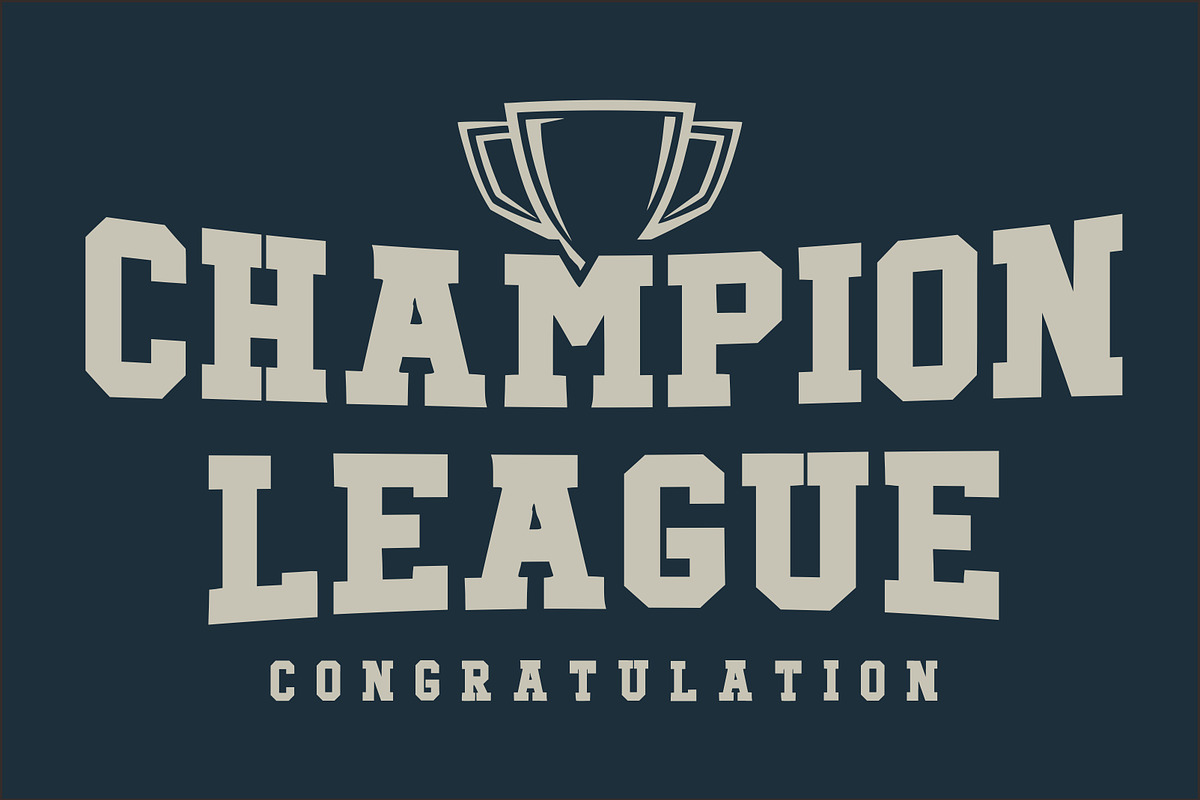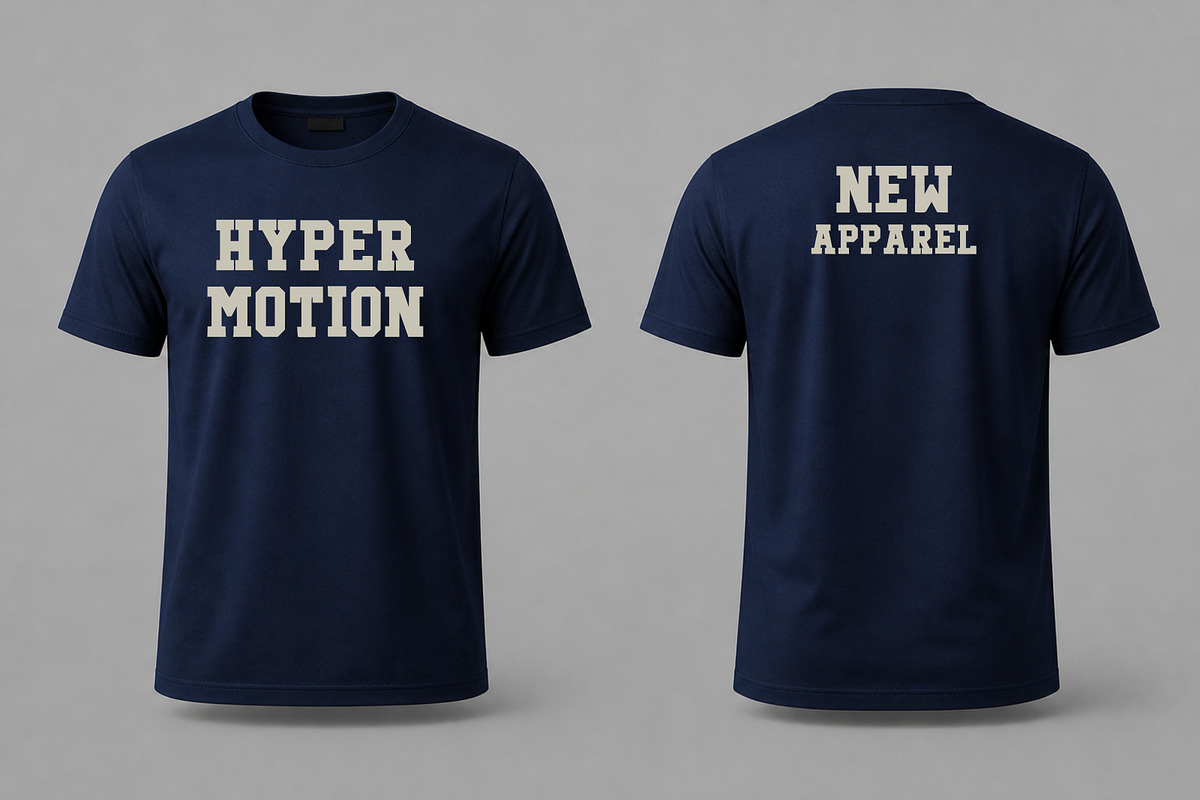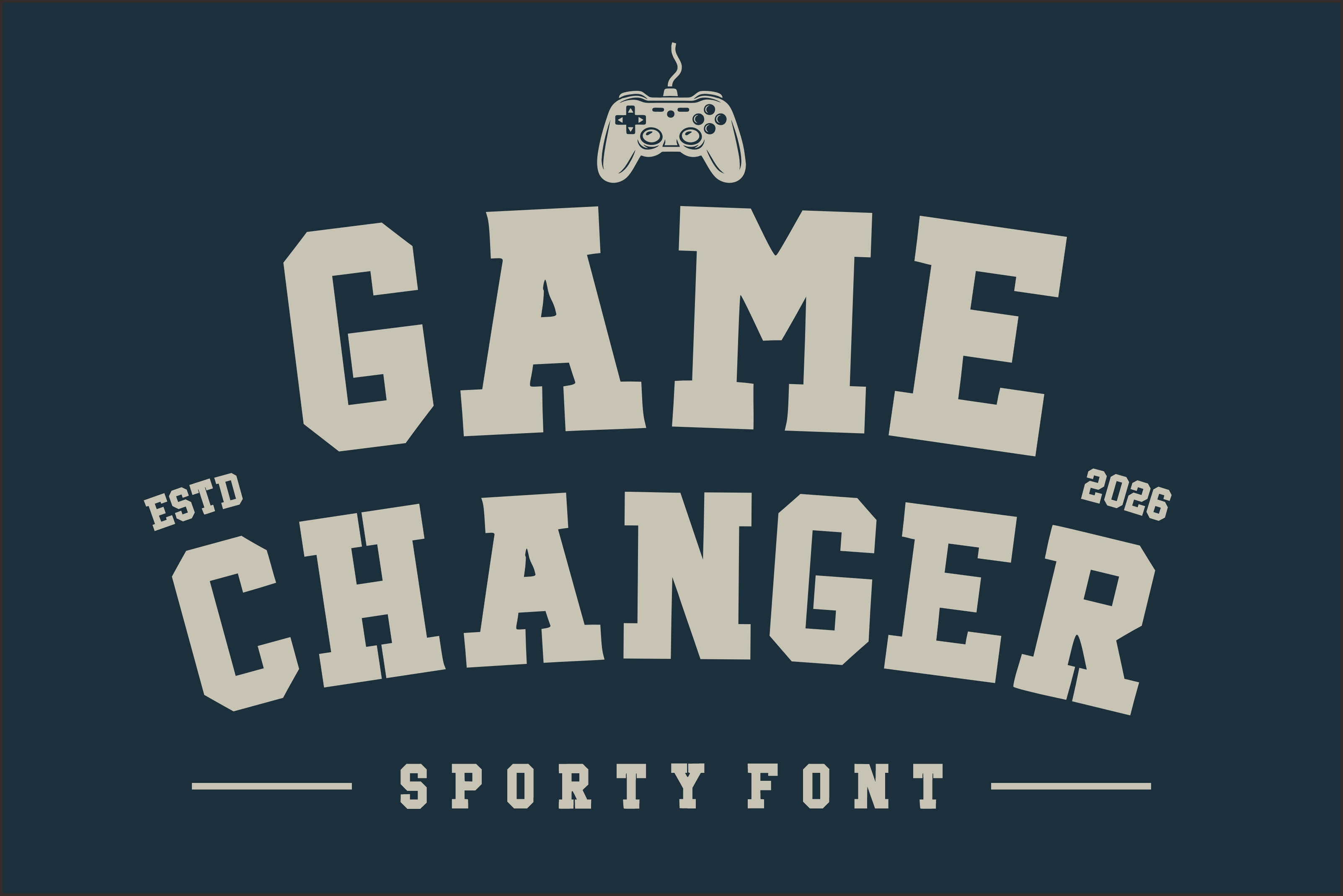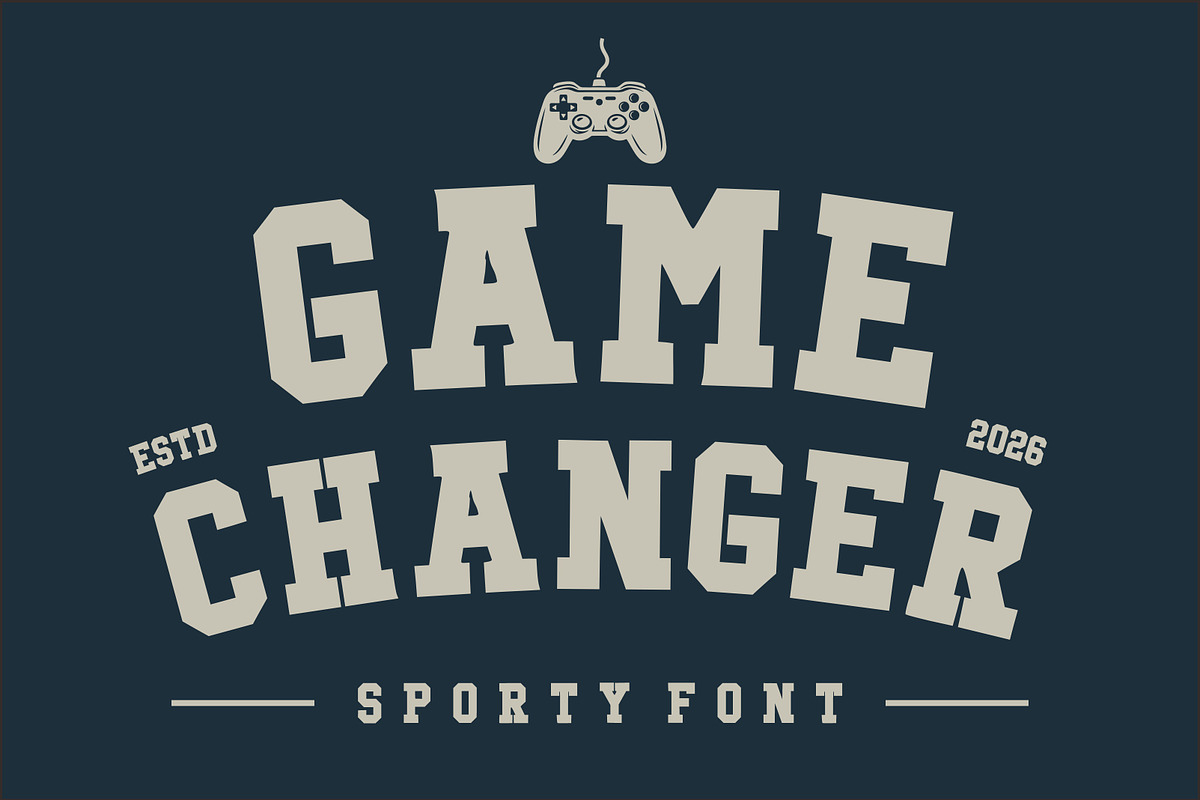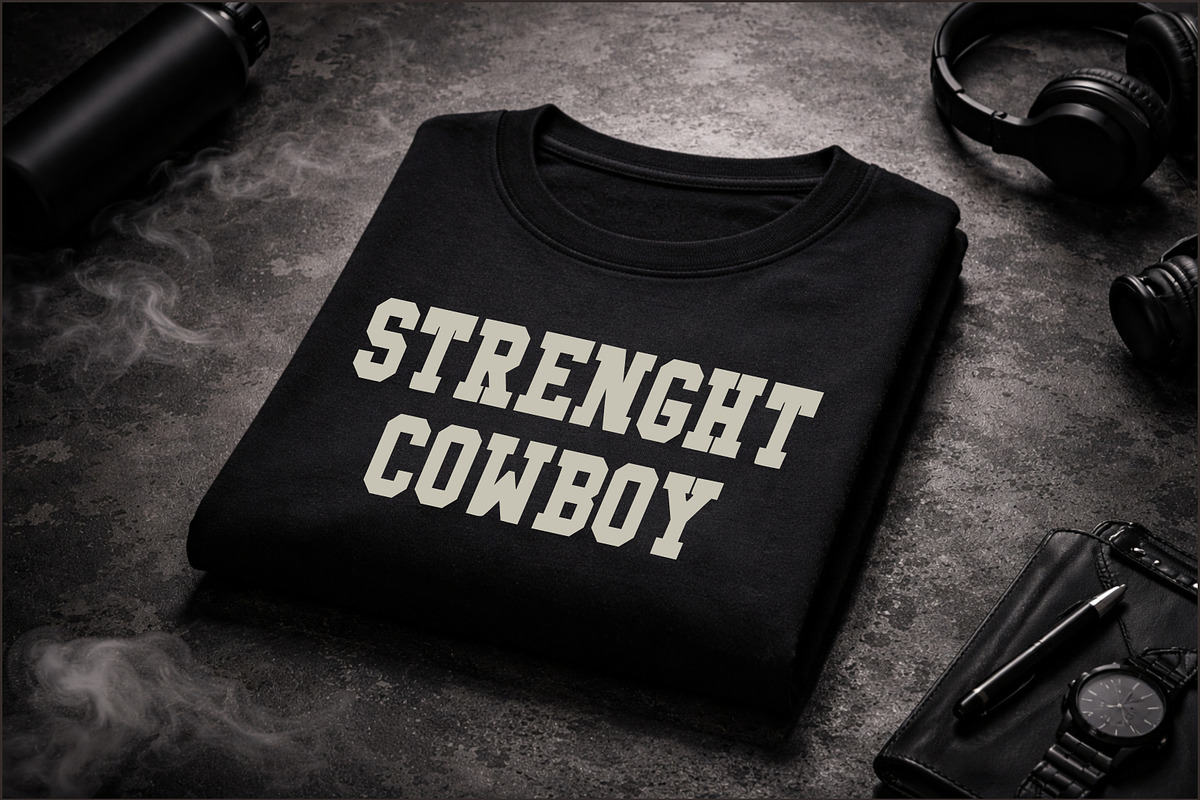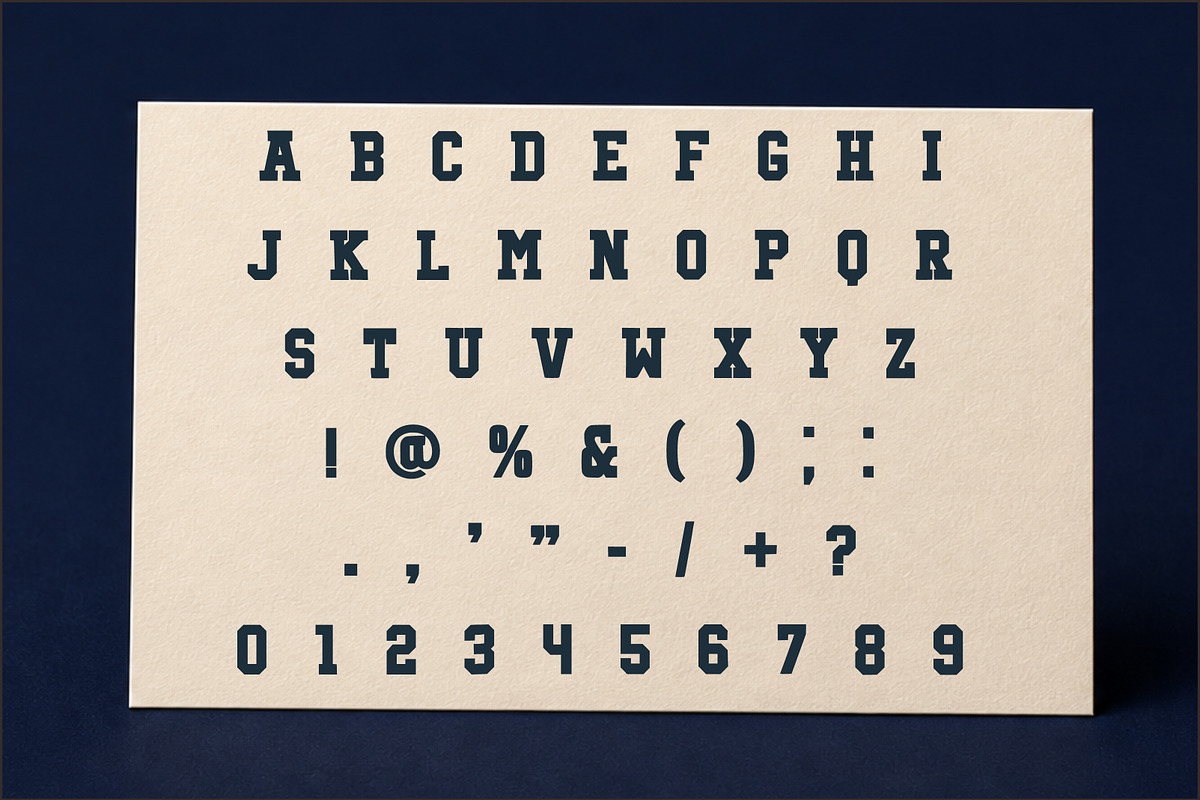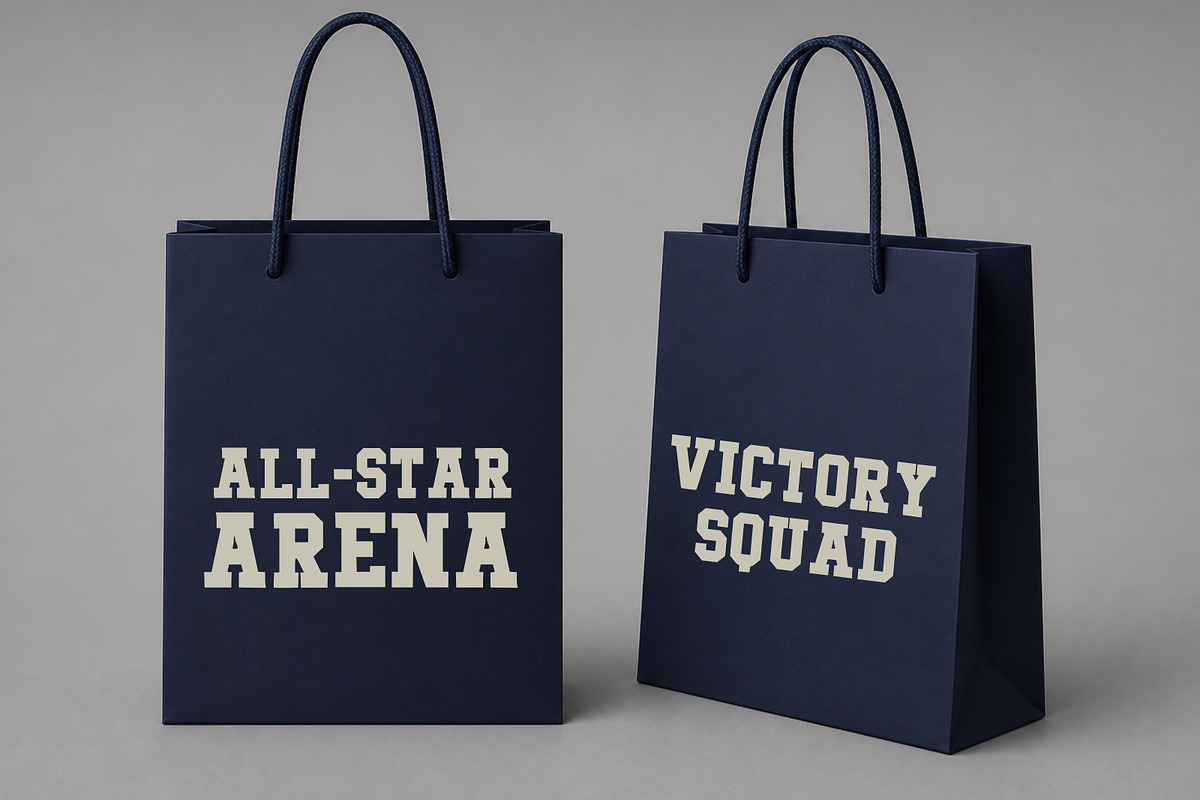
Game Changer Sporty Font
Game Changer is a bold and powerful sporty display font inspired by classic varsity, athletic, and college-style lettering. Designed with strong geometric shapes and a slightly rugged vintage feel, this font is perfect for creating eye-catching headlines and impactful designs.
Ideal for sports branding, esports logos, gaming merchandise, t-shirts, posters, packaging, and social media graphics, Game Changer delivers a confident and energetic vibe. Its thick strokes and solid structure make it highly legible while maintaining a stylish retro aesthetic.
Whether you're working on a modern sports identity or a nostalgic athletic theme, Game Changer is your go-to font to make a statement.
Bold and strong display style
Sporty and varsity-inspired design
Retro vintage athletic feel
Highly legible for headlines and logos
Perfect for branding and merchandise